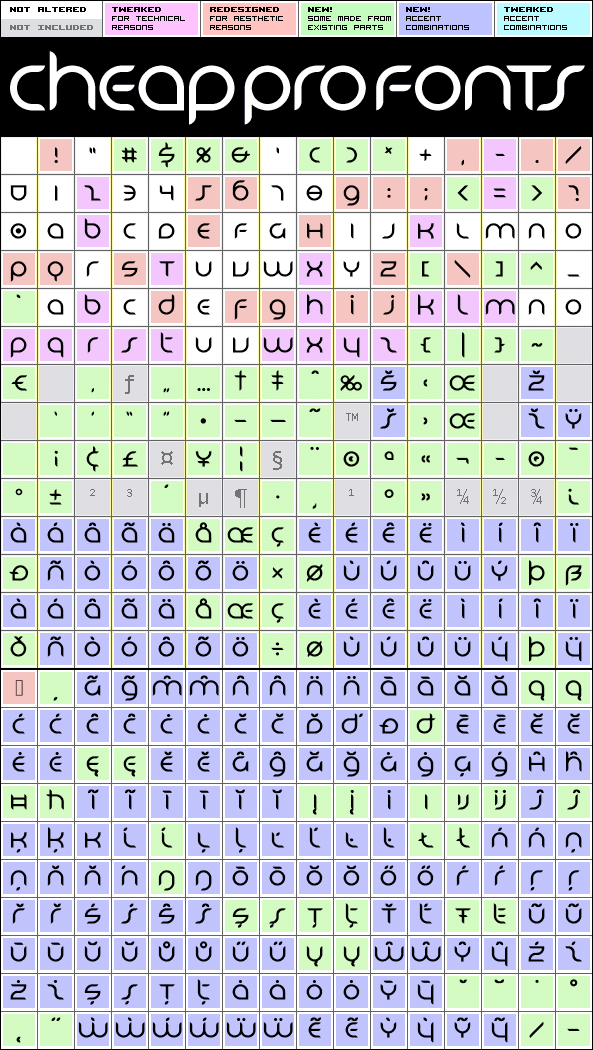
And here is a new Light weight of Danube to complete the set! Please note that the thinning process for this font mostly just involved removing a bit of weight from the outside of each letter (and adjusting the spacing) - so it no longer rests on the baseline. But it is slightly more elegant! ;)
Danube Pro Light is a professionally reworked font that contains an extended character set for setting text in 65 languages requiring more than the basic A-Z!